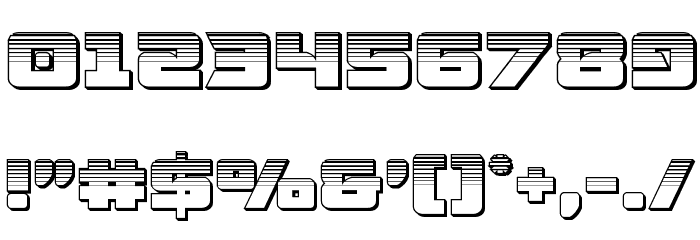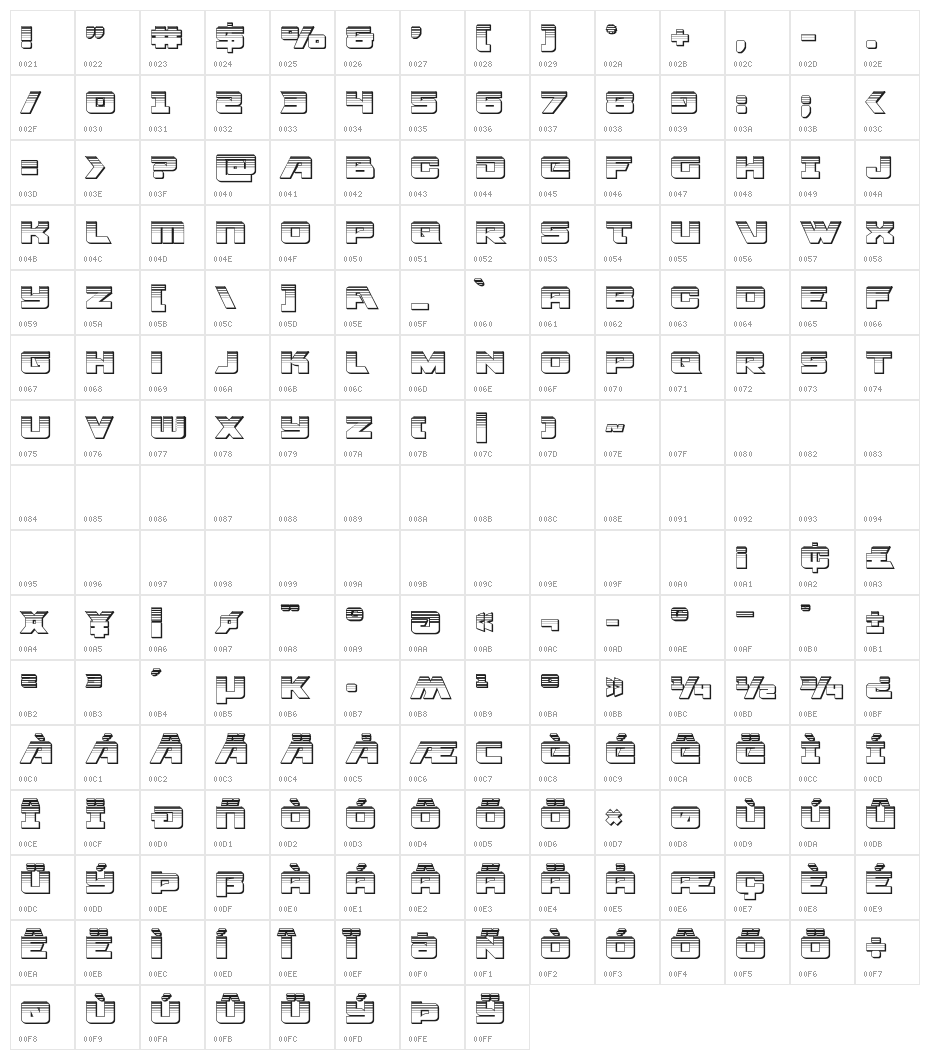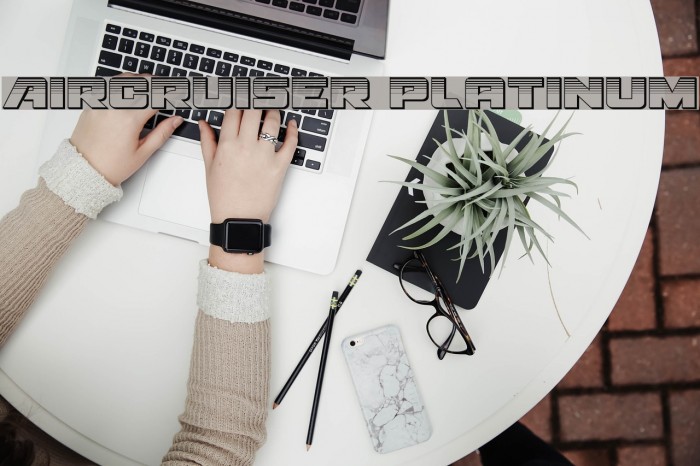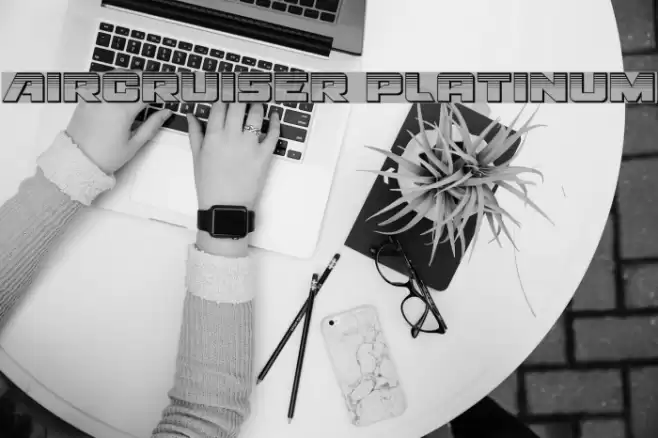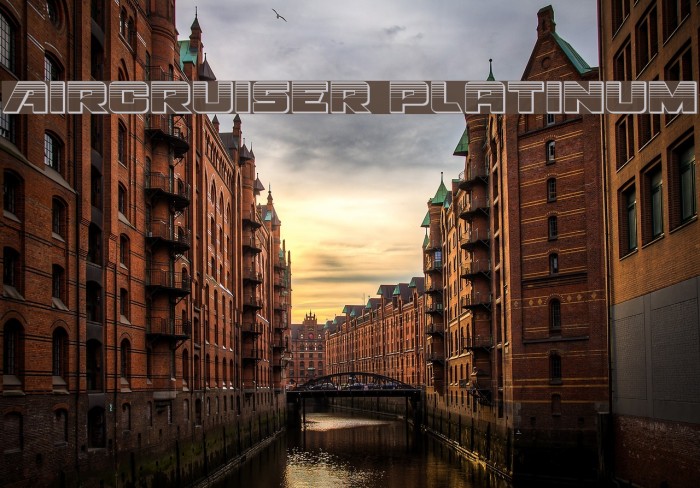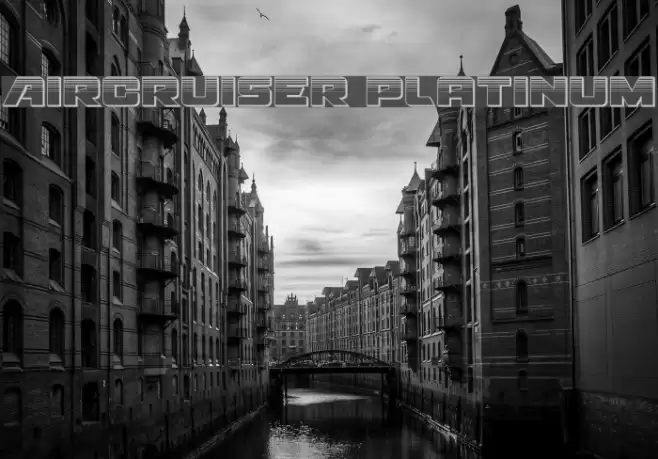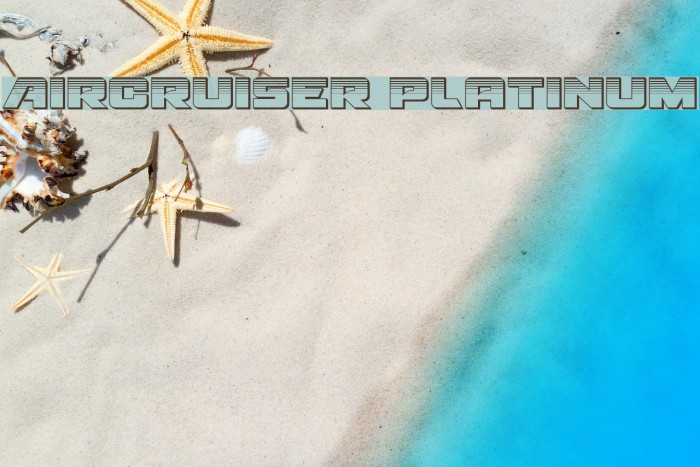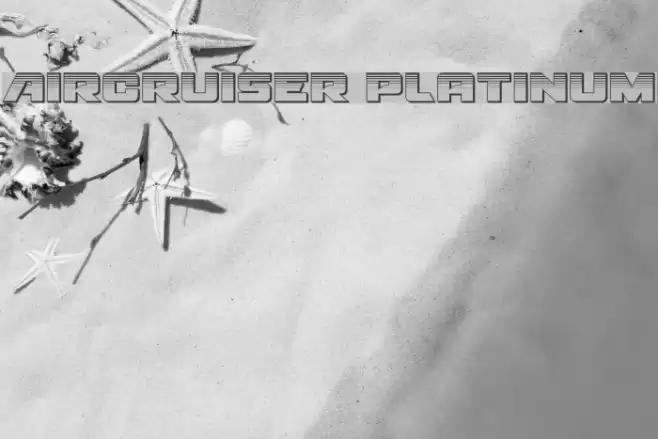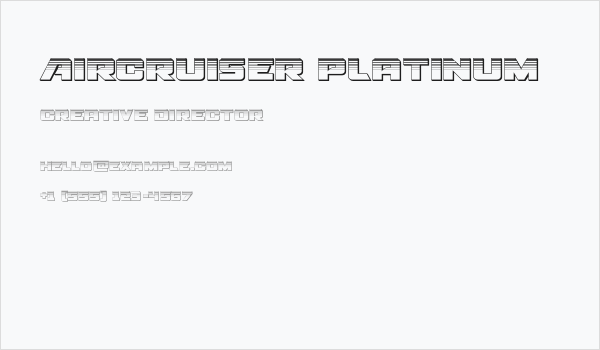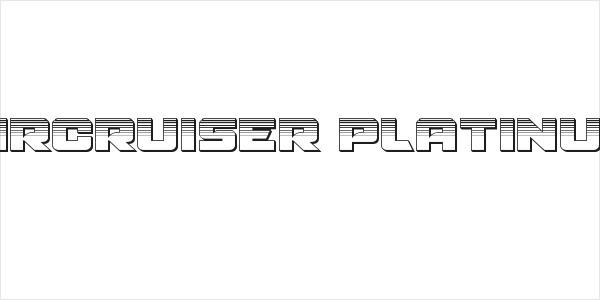
Aircruiser Platinum Font
Aircruiser Platinum Description
This font features a bold, futuristic design with a three-dimensional effect created by parallel lines and geometric shapes. The uppercase letters are characterized by their blocky, angular forms, giving a sense of depth and movement. The numerals and special characters maintain this consistent style, ensuring a cohesive look across all glyphs. The font's unique structure makes it stand out, ideal for projects that require a modern and dynamic appearance. Its distinct style is suitable for eye-catching headlines, logos, and branding materials where a strong visual impact is desired.
| Proposed Projects | Ideal for futuristic branding, sci-fi themed projects, video game titles, and tech-related advertisements. |